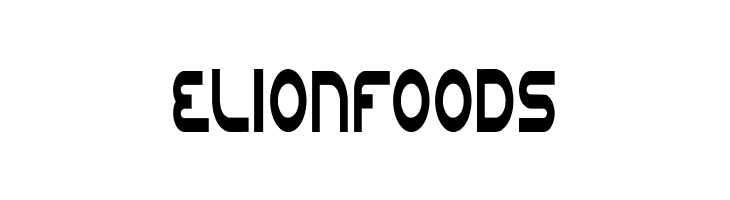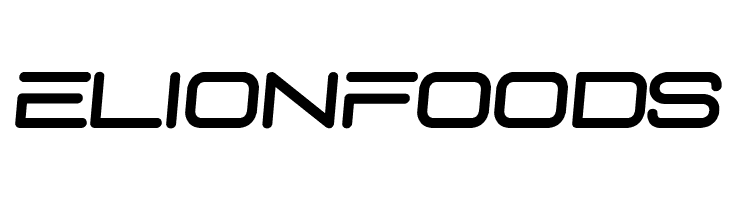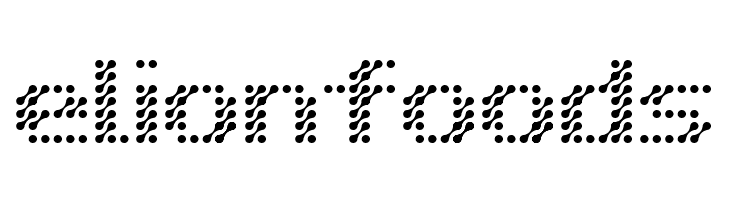
A pixelated, bitmap-style font with a retro digital aesthetic.
A futuristic, geometric font with bold, rounded shapes and unique cutouts.
A bold, graffiti-inspired font with dynamic, freeform strokes.
A bold, geometric font with a futuristic and tech-inspired design.
A futuristic and geometric font with consistent stroke width and modern appeal.
A modern, dotted font with a playful and unique design.